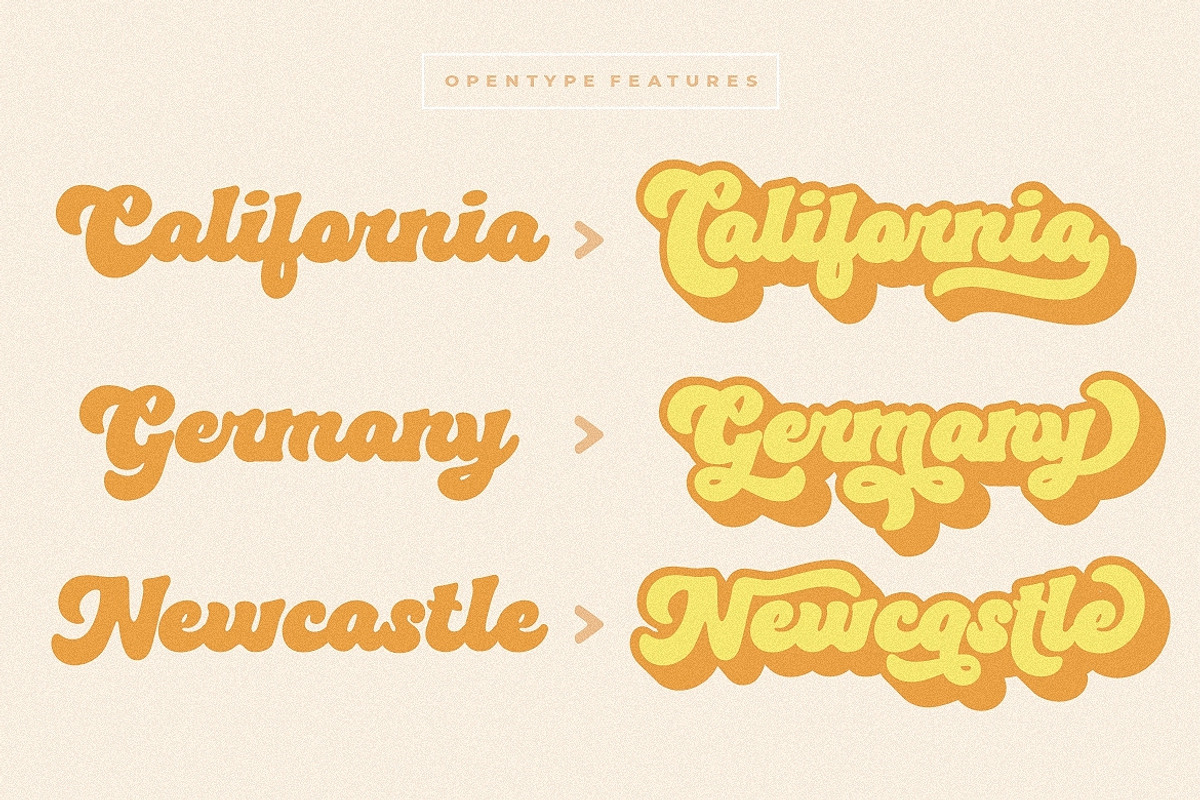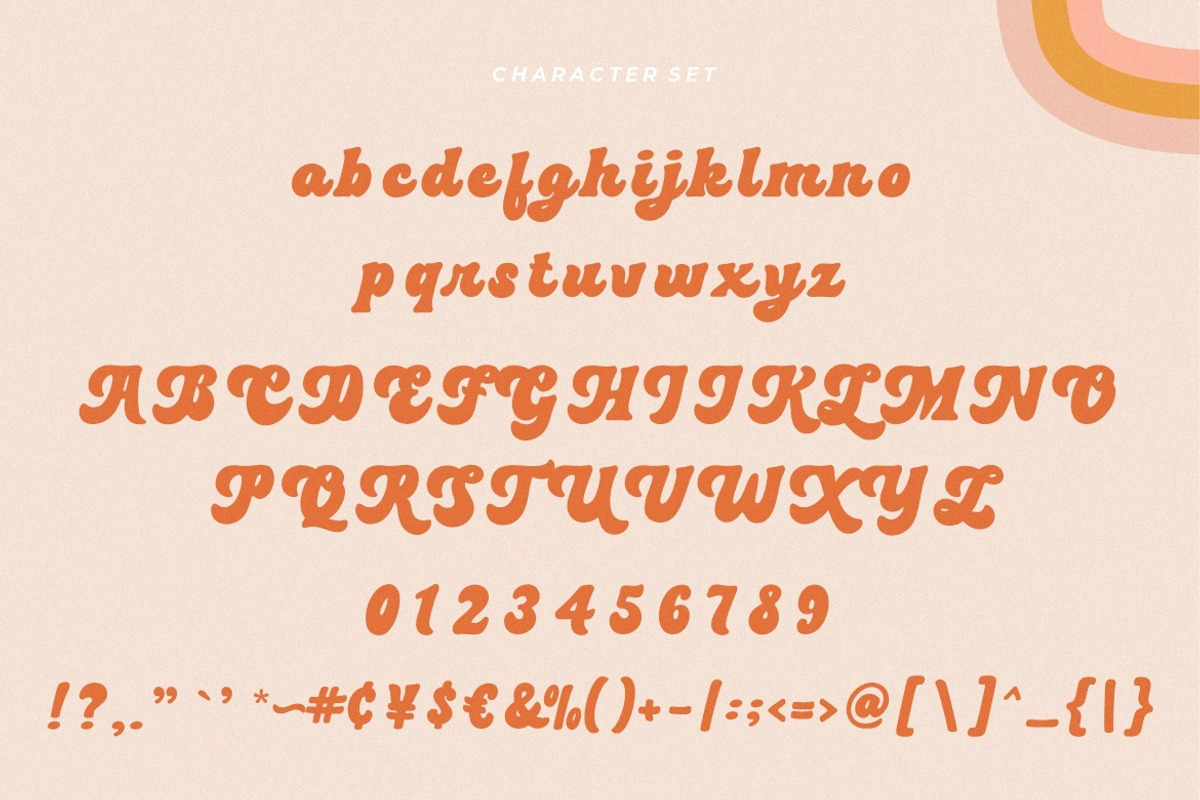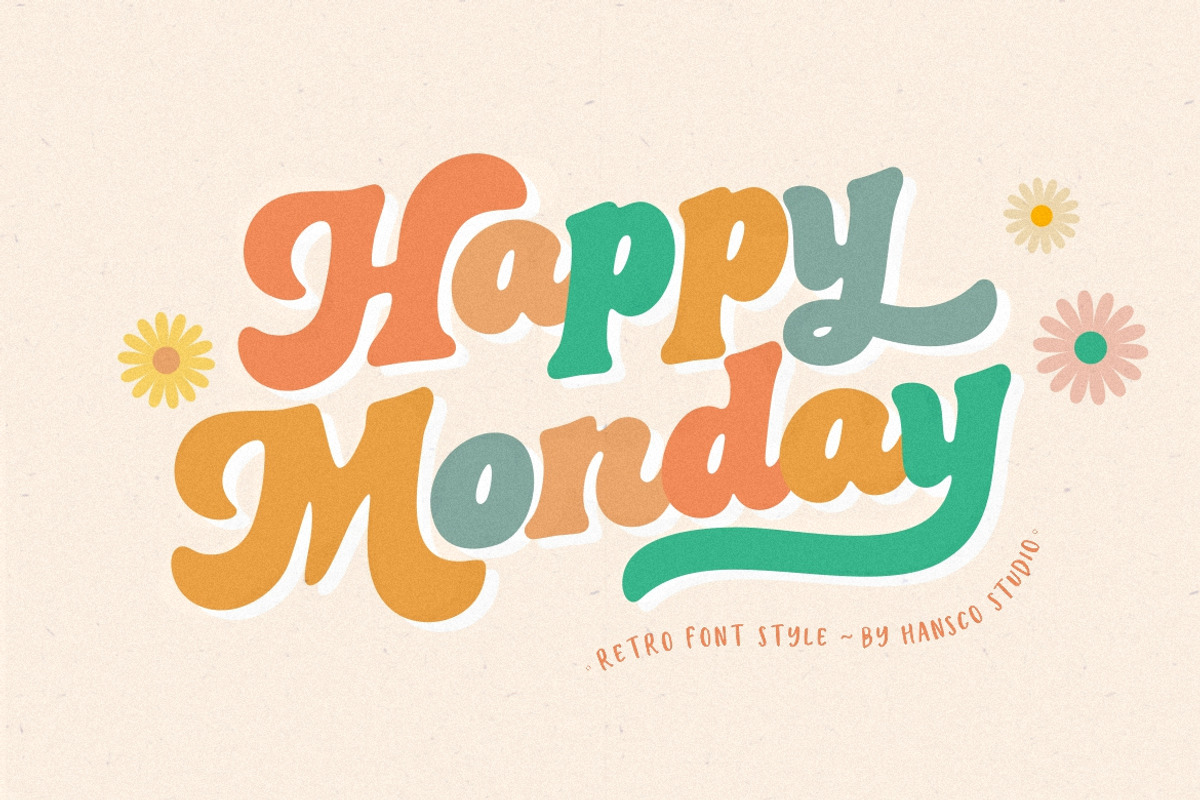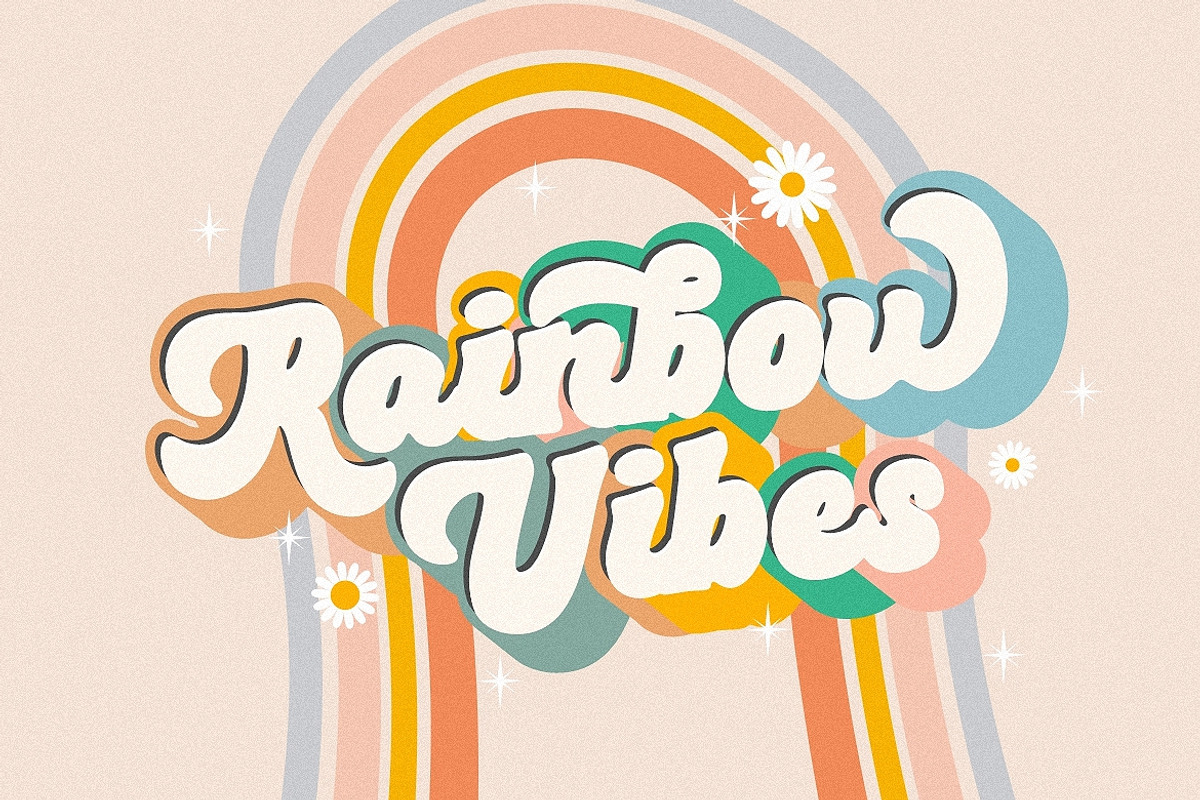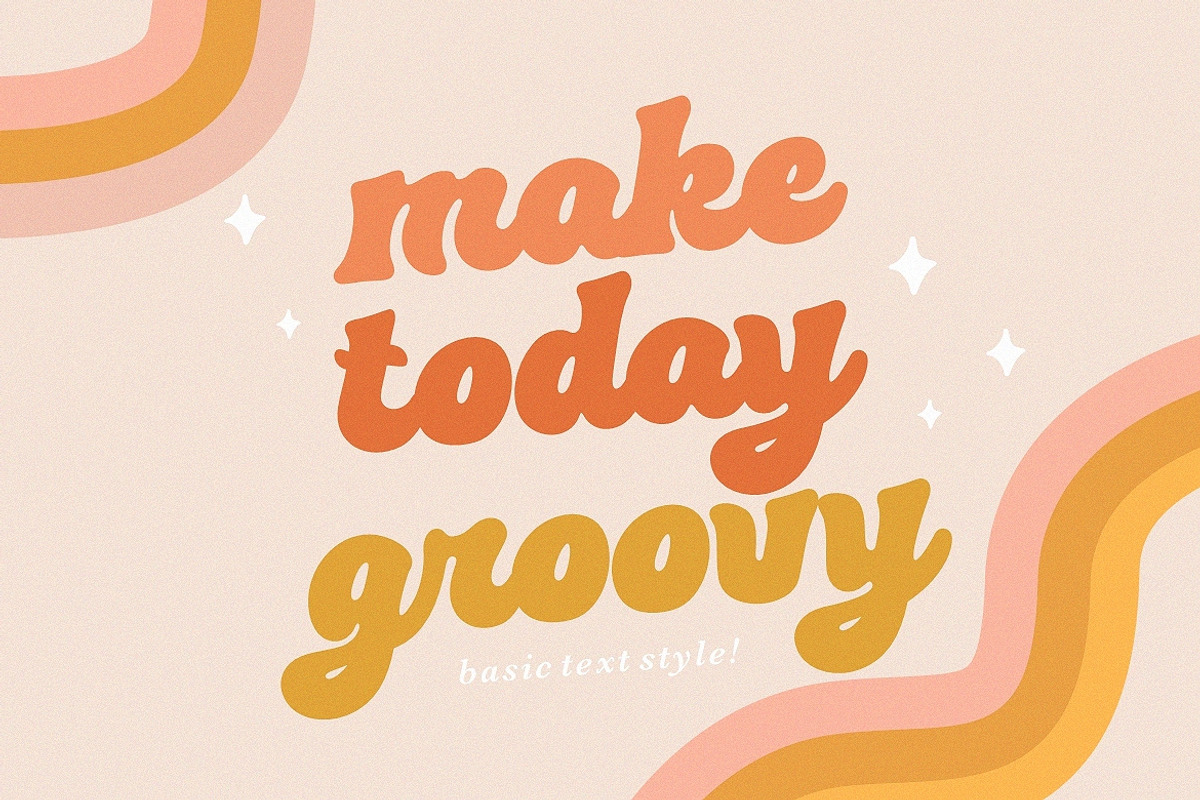
Happy Monday - Retro Groovy Fonts
Happy Monday is a retro and bold display font. Use this display font to add that special retro touch to any design idea you can think of!. Masterfully designed to become a true favorite, this font has the potential to bring each of your creative ideas to the highest level!
Very suitable for logotype, Stickers, Packaging design, Cricut Project, headlines, brand identity, t shirt or apparel industry, posters, magazines, books, YouTube, Instagram, websites, or any of your creative design projects.
- alternates
- swashes
- shadow